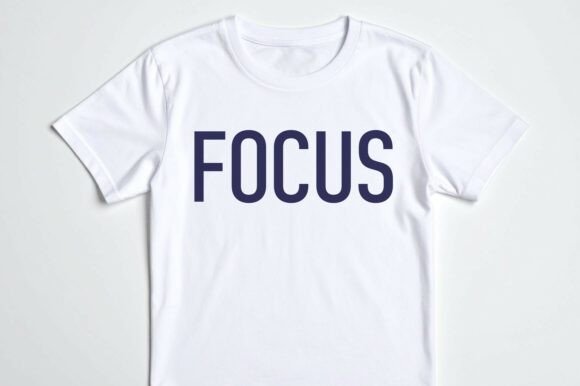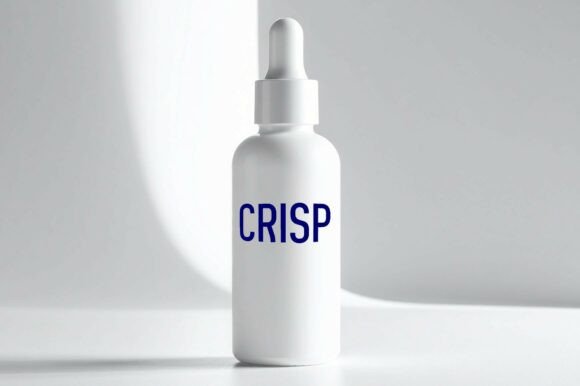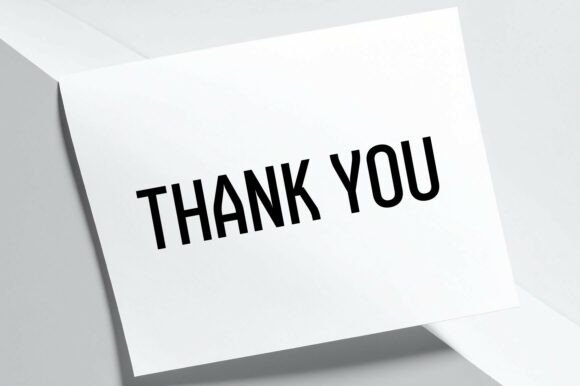
Unleash the Power of Catenaccio Font: A Robust Display Font for Bold Designs
In the realm of typeface artistry, few fonts have made a statement as bold as Catenaccio. This robust display font is engineered to dominate any visual landscape with its geometric potency, making it an ideal choice for designers seeking to create a lasting impression. With its innovative, sturdy aesthetic and crisp contours, Catenaccio is a visual manifesto of metallic certitude.
A Study in Geometric Potency
Catenaccio’s design is characterized by its well-defined, substantial characters and thoughtfully devised all-caps layout. This font embodies a confident balance of stability and precision, making it perfect for larger scales where exceptional readability is crucial. Whether you’re looking to propagate clear and powerful messages or make a bold statement, Catenaccio is the perfect choice.
What Makes Catenaccio Stand Out?
So, what sets Catenaccio apart from other fonts? The answer lies in its indomitable courage, which serves as a visual foothold, making any design unmissable. This font is not just a typeface; it’s a tenacious declaration that demands attention and commands presence. Whether you’re working on a branding project, a marketing campaign, or a design endeavor that requires emphatic communication, Catenaccio is the ideal choice.
The Art of Bold Communication
In today’s fast-paced visual landscape, it’s easy to get lost in the noise. However, with Catenaccio, you can cut through the clutter and make a lasting impression. This font’s stoic and unwavering tone makes it perfect for projects that require a strong, confident voice. Whether you’re looking to create a sense of authority, convey a message of strength, or simply make a bold statement, Catenaccio is the perfect tool for the job.
Design Possibilities with Catenaccio
Catenaccio’s versatility makes it an excellent choice for a wide range of design applications. Here are just a few ideas to get you started:
- Branding and Logo Design: Use Catenaccio to create a bold, memorable logo that makes a lasting impression.
- Marketing and Advertising: Leverage Catenaccio’s commanding presence to create eye-catching marketing materials that demand attention.
- Packaging Design: Add a touch of sophistication and strength to your packaging designs with Catenaccio’s sturdy aesthetic.
- Poster and Print Design: Use Catenaccio to create bold, impactful posters and prints that make a statement.
Tips for Working with Catenaccio
To get the most out of Catenaccio, here are a few tips to keep in mind:
- Use it in larger scales: Catenaccio is designed to shine in larger scales, so don’t be afraid to use it for headlines, titles, and other prominent design elements.
- Experiment with colors: Catenaccio’s geometric potency makes it a great choice for use with bold, bright colors.
- Pair it with contrasting fonts: Combine Catenaccio with contrasting fonts to create visual interest and add depth to your designs.
In conclusion, Catenaccio is a robust display font that is engineered to dominate any visual landscape. With its innovative, sturdy aesthetic and crisp contours, it’s the perfect choice for designers seeking to create a lasting impression. Whether you’re working on a branding project, a marketing campaign, or a design endeavor that requires emphatic communication, Catenaccio is the ideal choice. So why settle for a ordinary font when you can make a bold statement with Catenaccio?